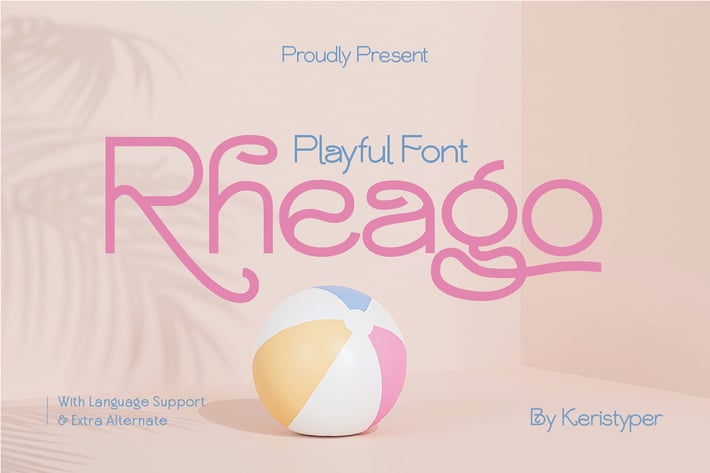
Rheago Font
say hello to Rheago, a sweet and cute typeface. This font is good for logo design, Social media, Movie Titles, Books Titles, short text even long text letters, and good for your secondary text font with sans or serif.
Standard Uppercase & Lowercase
Multilingual : ä ö ü Ä Ö Ü ß ¿ ¡
Alternate & Ligature